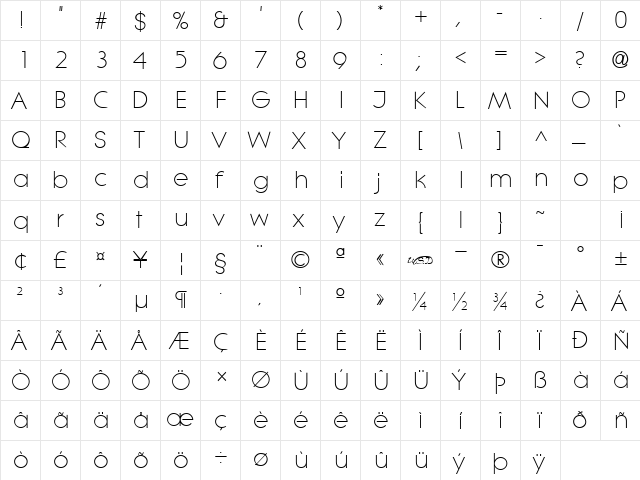
Lithe Regular
Design Context for Lithe Typeface
Lithe takes a measured approach to typography — its balanced proportions and neutral character make it a reliable workhorse for both digital and print work.